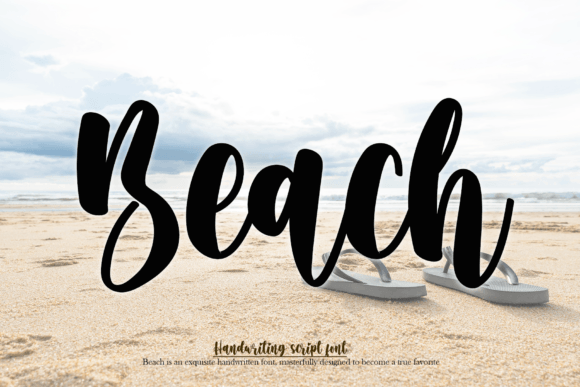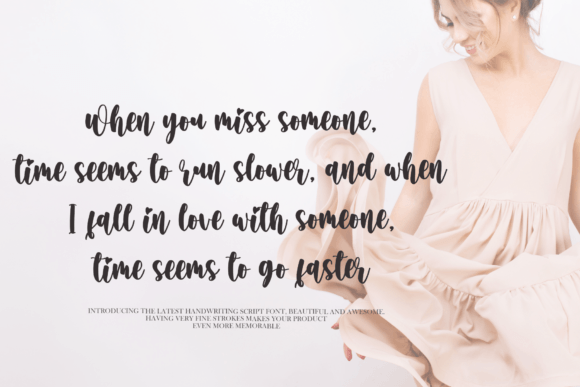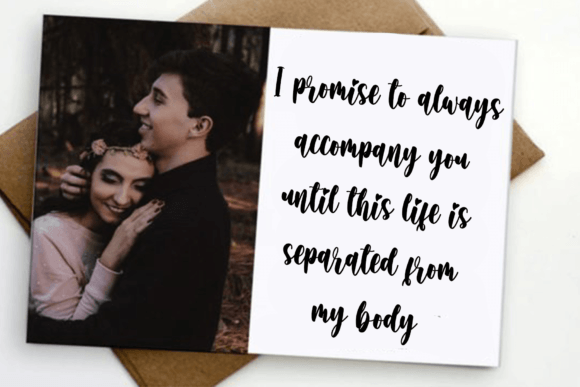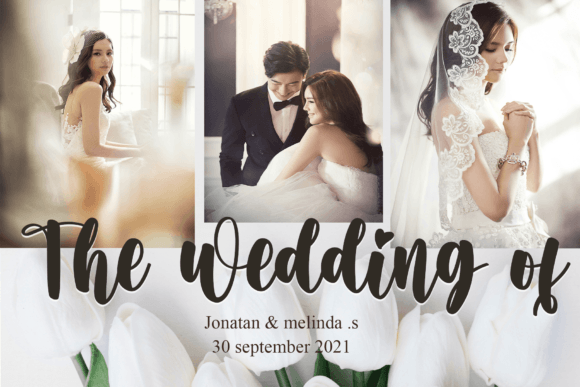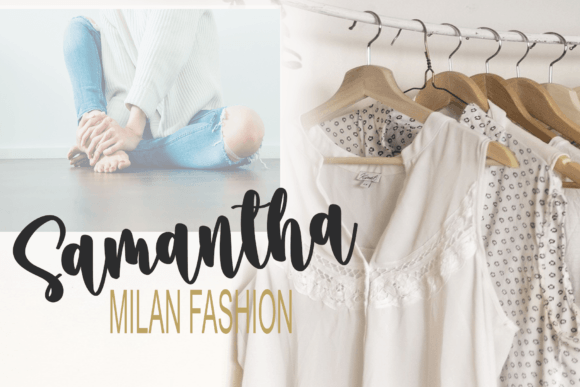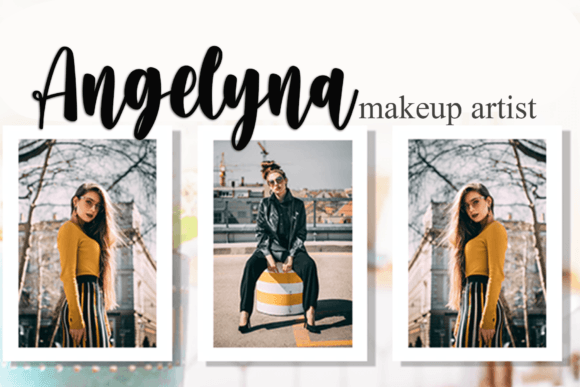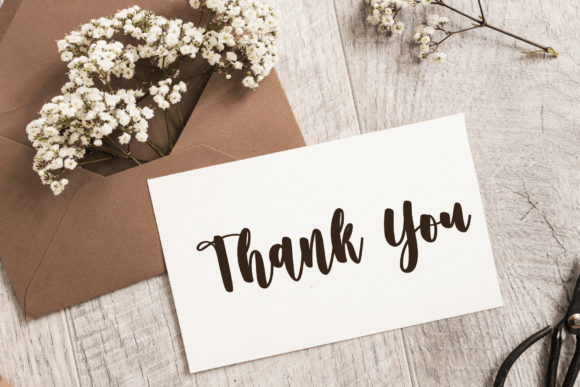
Beach Font
About Beach Font
“Beach” is not just a font; it’s a fancy handwritten typeface designed to inspire creativity in your work. This versatile font adds a touch of uniqueness and style to various design applications, including logo design, social media graphics, movie titles, book titles, and more. With the Beach font, you have the tools to create stunning and visually appealing work.
The fancy handwritten style of Beach brings a distinct and artistic flair to your designs. Its individualistic charm can enhance the personality of your brand or project, making it stand out and leave a memorable impression.
In logo design, Beach font becomes a key element in communicating creativity and a laid-back vibe. The handwritten aesthetic adds a personal touch, making your brand identity more relatable and engaging for your audience.
For social media graphics, where visual appeal is essential, Beach shines. Whether used for Instagram posts, Facebook covers, or other social media visuals, the font brings a touch of sophistication and creativity to your online presence.
Movie titles and book titles benefit from the stylish allure of Beach. Its fancy handwritten design can transform titles into eye-catching and memorable elements, setting the tone for the content and capturing the audience’s attention.
The versatility of Beach font extends to various creative projects, allowing you to explore its potential in different contexts. Its suitability for a range of applications makes it a valuable tool for designers seeking to infuse their work with a sense of style and artistic expression.
In conclusion, Beach font is more than just a typeface; it’s a design asset that invites creativity and uniqueness into your projects. Whether you’re creating logos, social media graphics, movie titles, or book titles, let Beach font be the fancy and handwritten element that elevates your work, making it stunning and captivating for your audience.